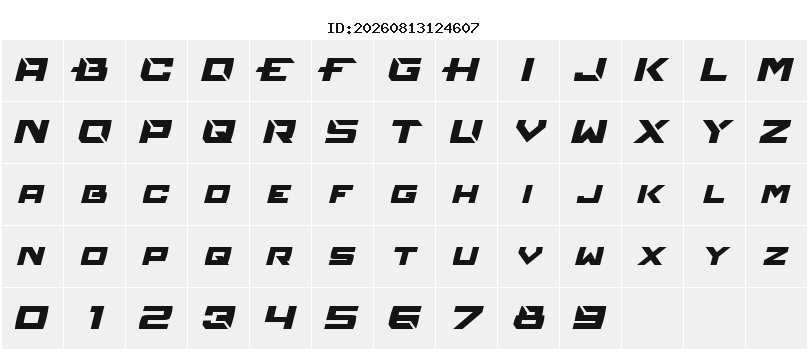
Reconstruct Preview
• Font Name: Reconstruct
• Font ID: Reconstruct Italic:Version 1.00
• Full Font Name: Reconstruct Italic
• Version: Version 1.00 April 24, 2013, initial release
• PostScript Name: Reconstruct-Italic
• Designer: Neale Davidson
About Reconstruct.ttf
Reconstruct.ttf is a modern, elegant sans-serif font designed for ultimate readability and visual harmony. Perfect for branding, headlines, web design, and print materials.